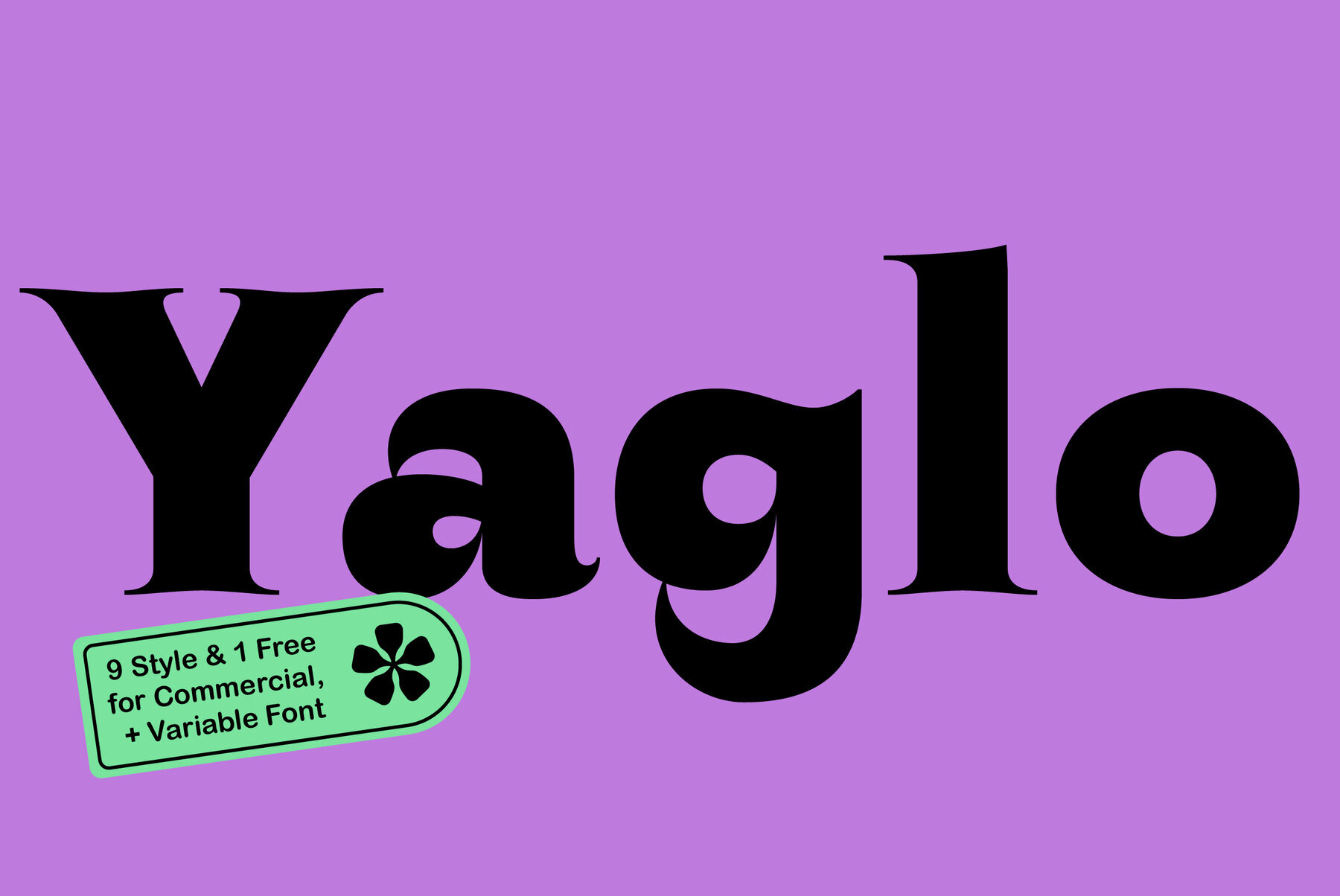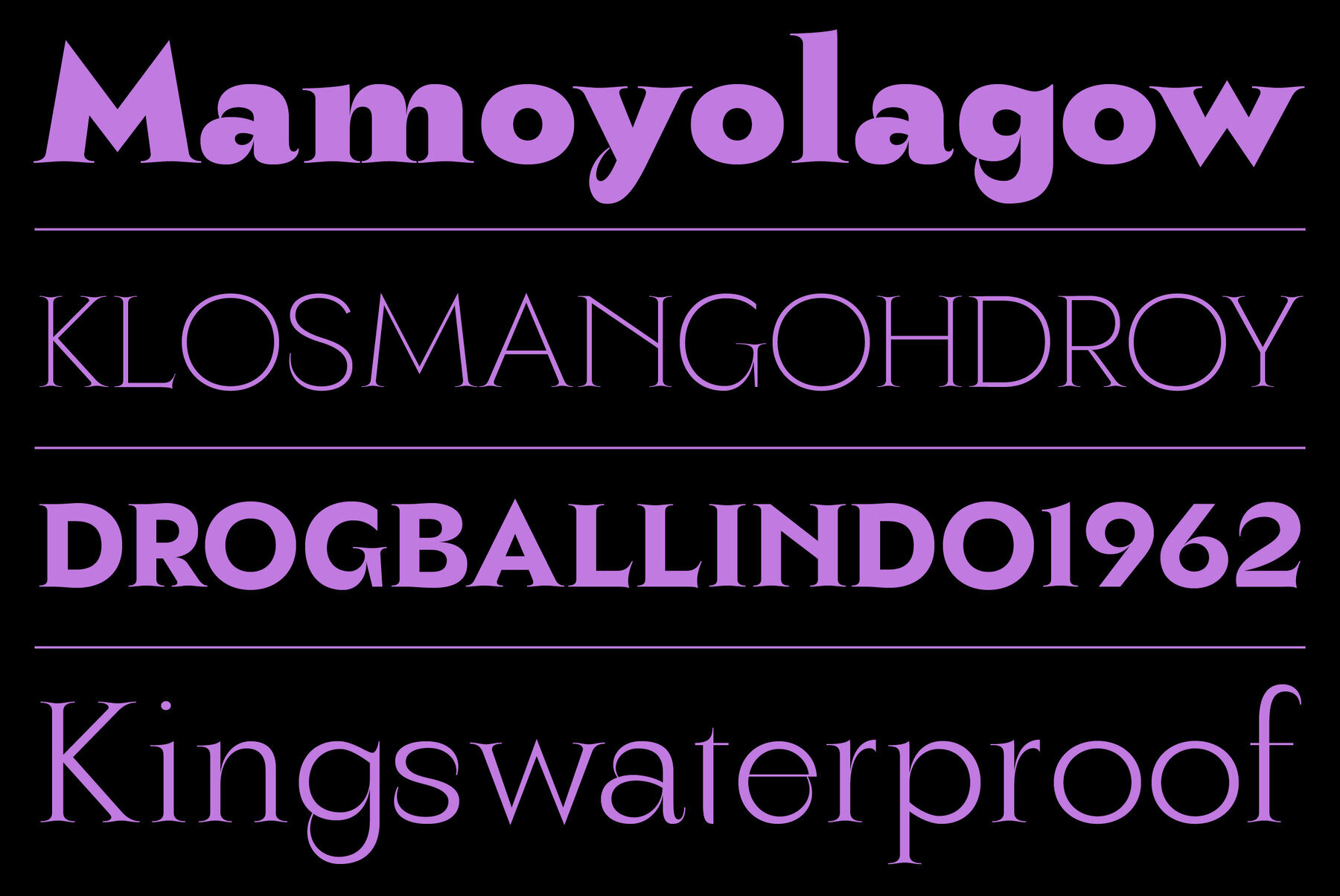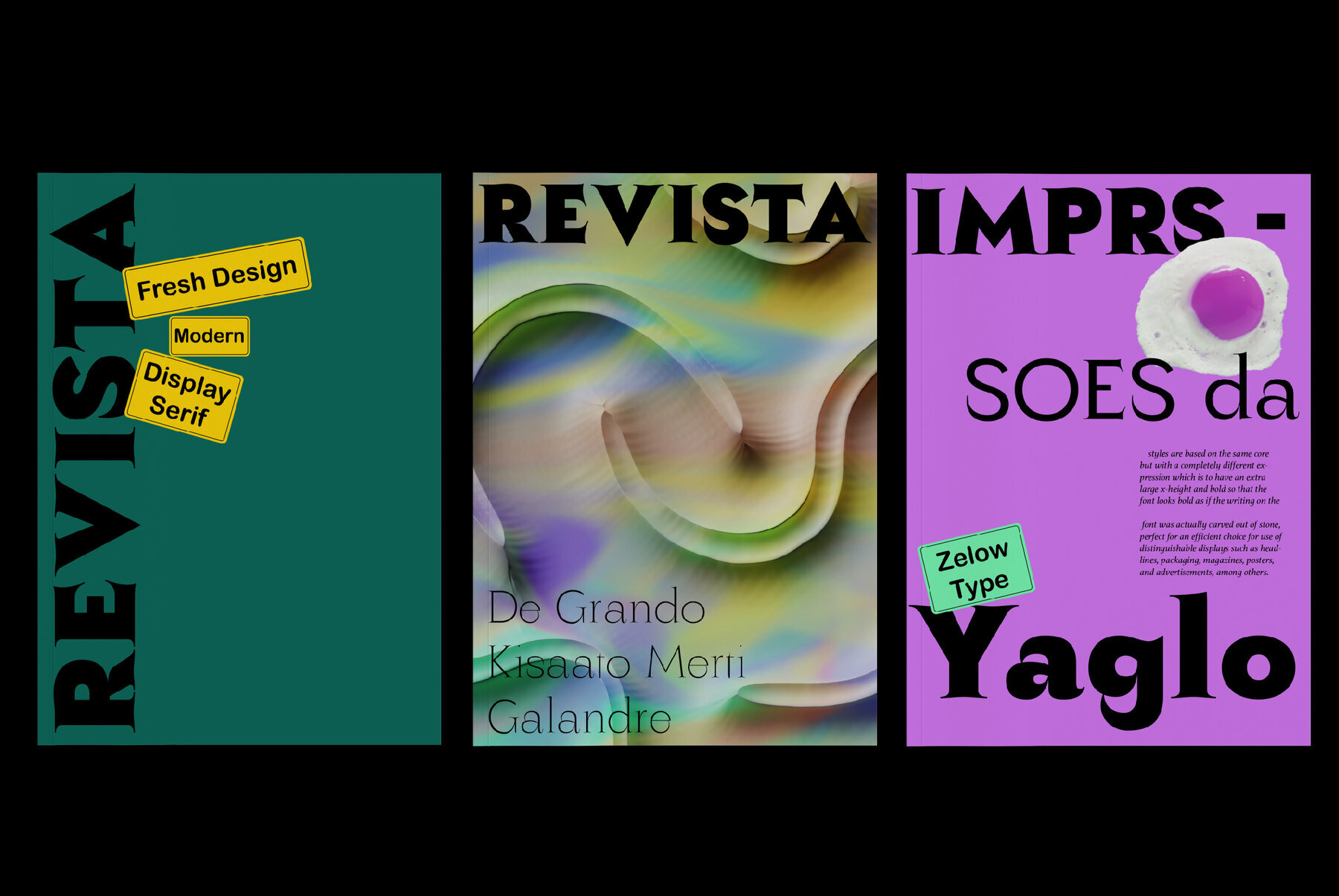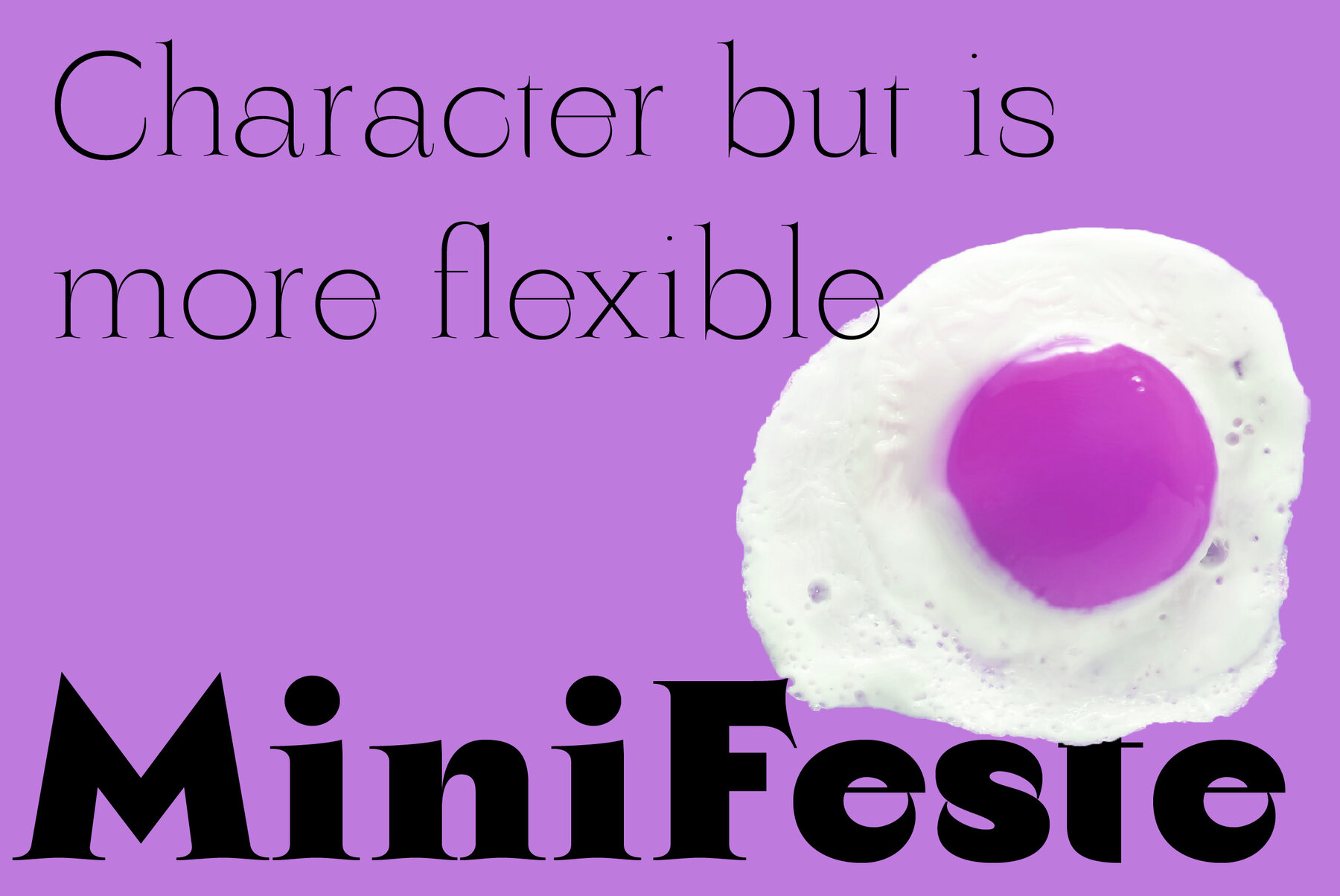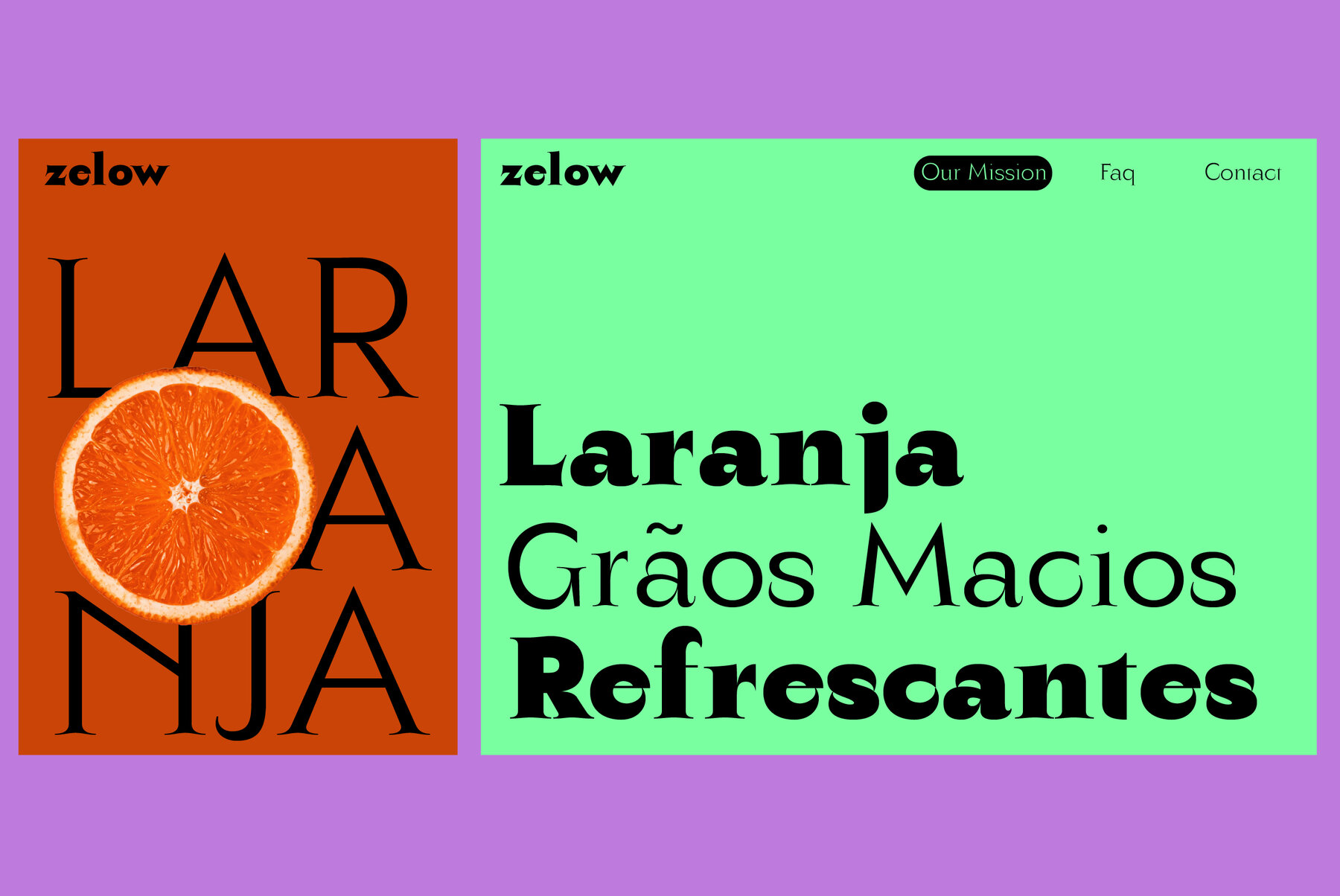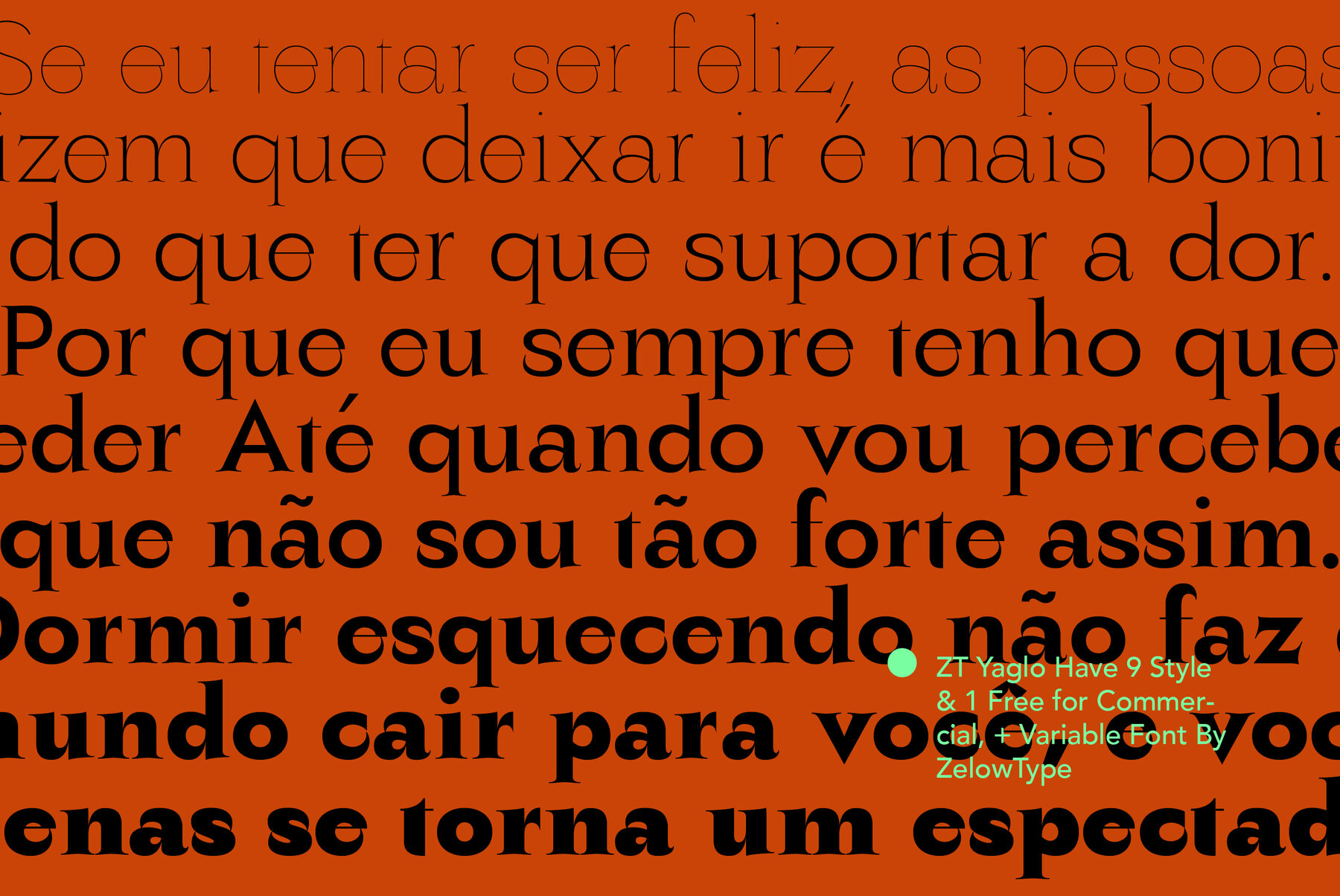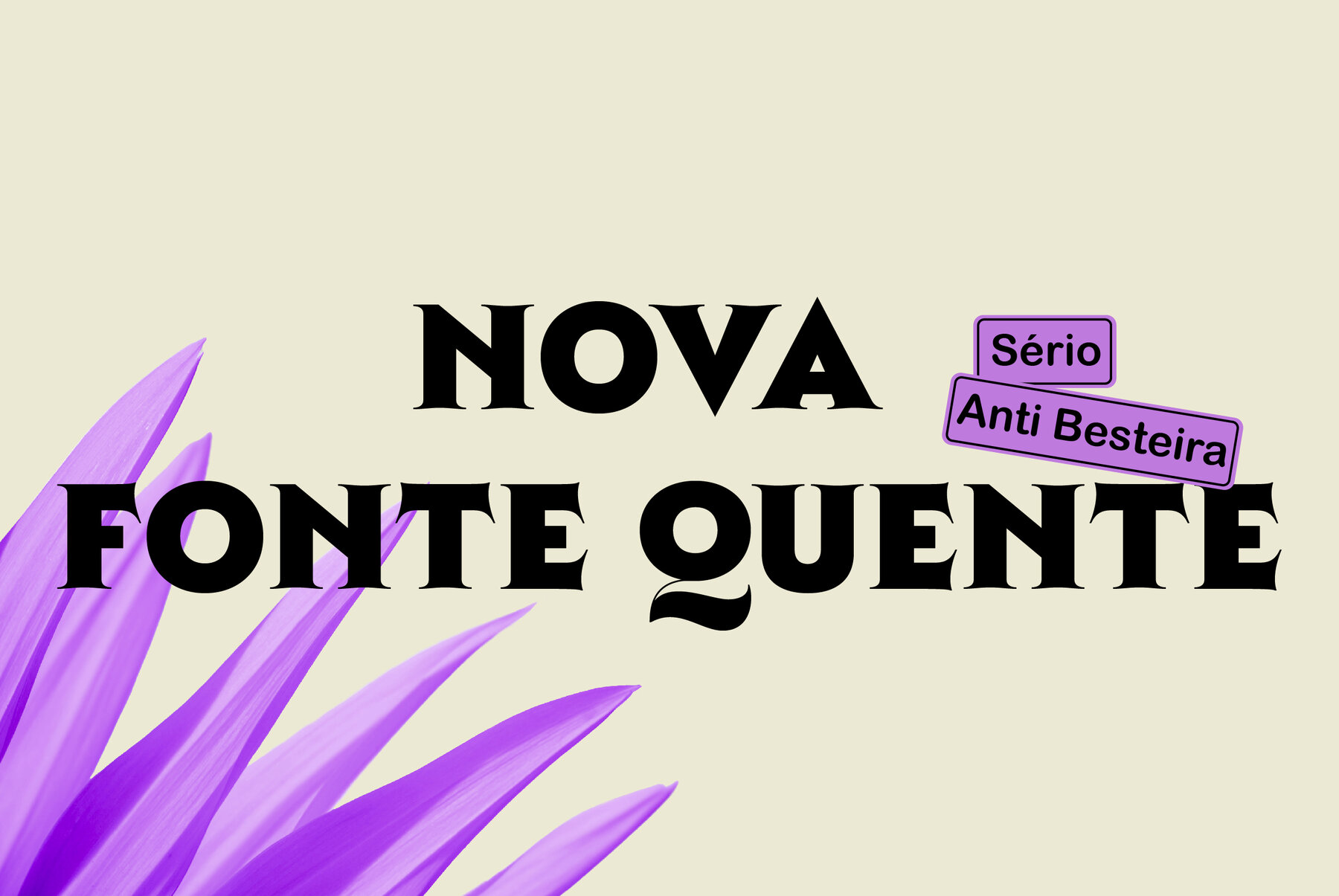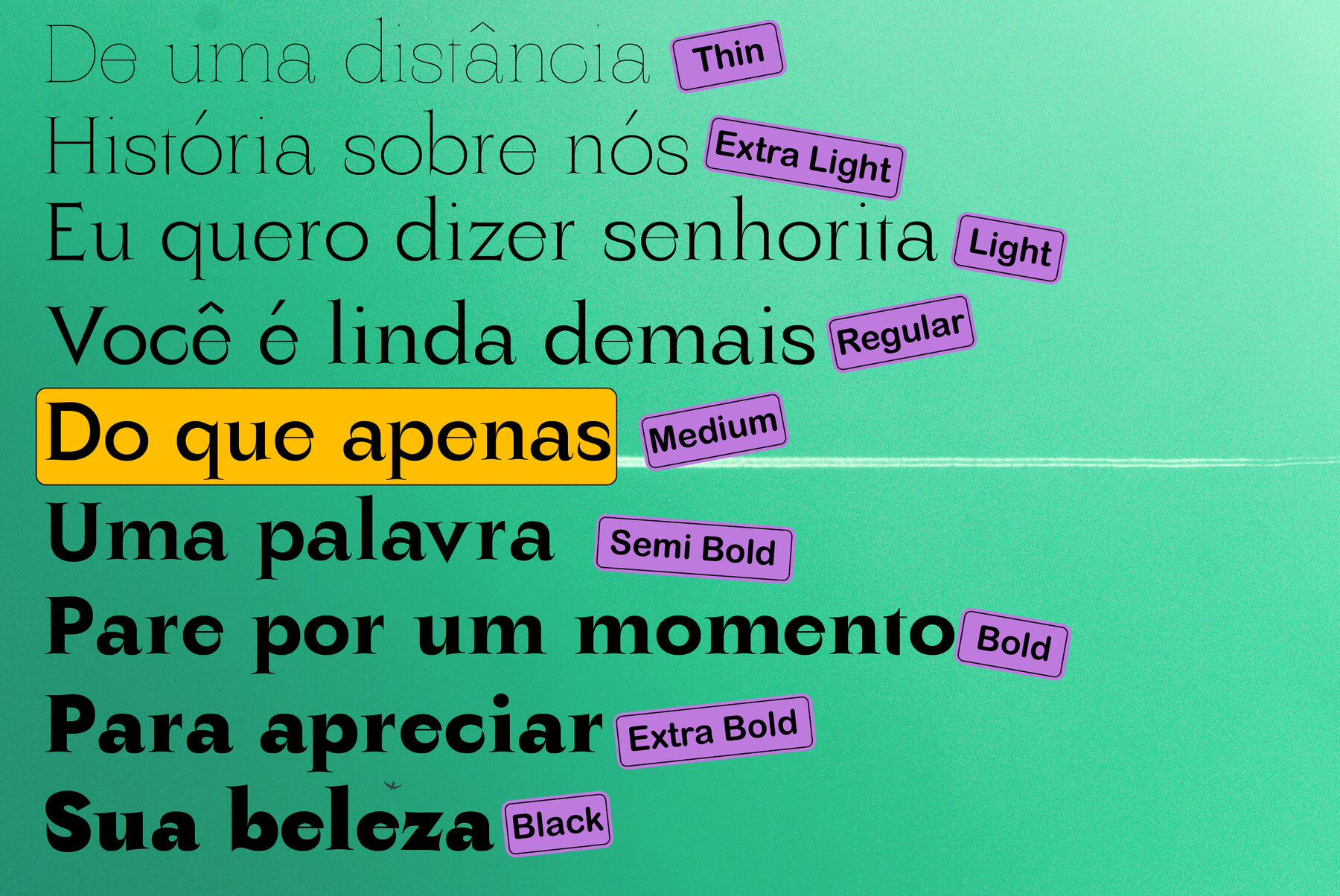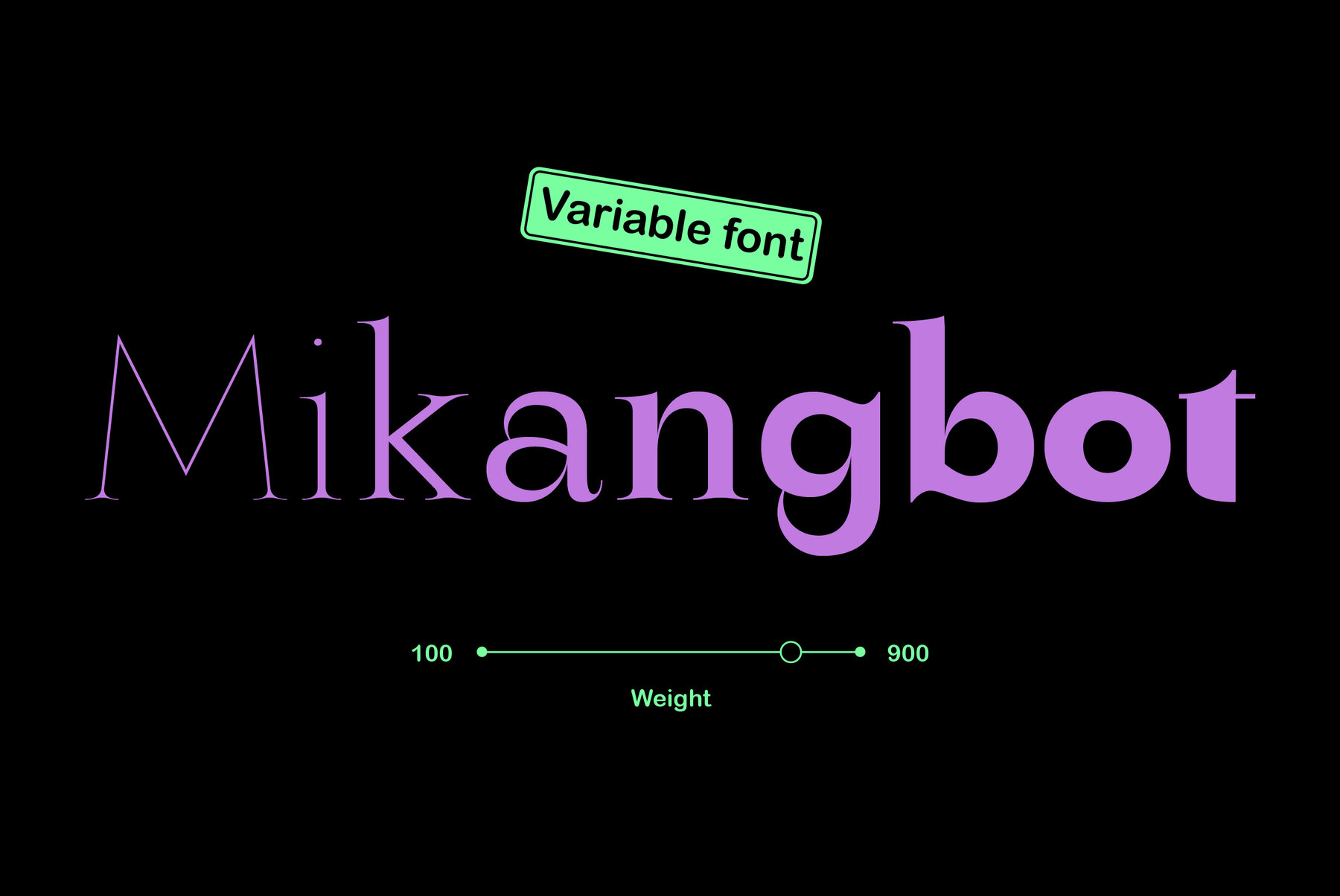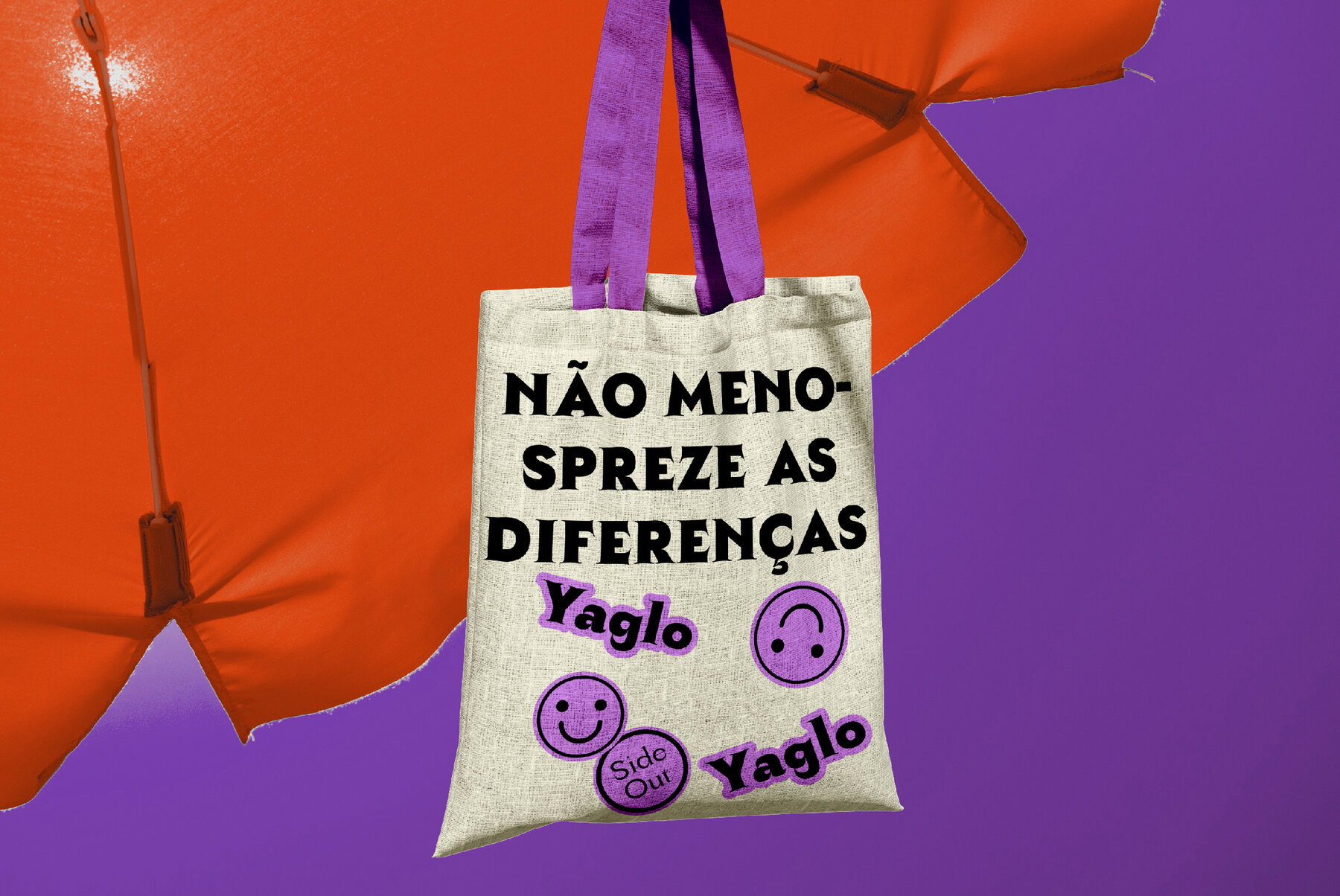
ZT Yaglo Font
ZT Yaglo is a dynamic and expressive display font, from the first impression you may have noticed that this font is a fishing rod-like concept, with a consistent rhythmic curve that gets sharper at the ends. The ZT Yaglo typeface is framed in a sans theme and added a serif feel to produce a bold, geometric typeface in all thicknesses.
ZT Yaglo mixes a simple sans style for extra bold serif energy with the feel of calligraphic shapes. The thicker your choice of style, the more striking the flow of changes in shape becomes spiky. ZT Yaglo is a cool alternative for you to create branding projects, Logo designs, Apparel Branding, product packaging, magazine headers or just as a stylish text overlay onto any background image.
ZT Yaglo has 9 Styles, 1 Free for Commercial, and one Variable font. each face has 457 glyphs. Includes Standard Ligature, and the "&" character has an alternate letter in each Weight.